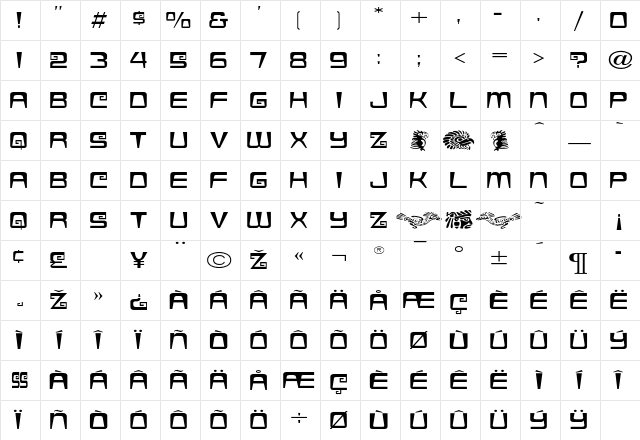
Azteca Regular Regular
Copyright: Regular width created using Dan Solo's Condensed 1999 Version as a guide.
Foundry: Character
Design Context for Azteca Regular
Azteca Regular is a composed and adaptable typeface that performs quietly and consistently across a wide range of design contexts.